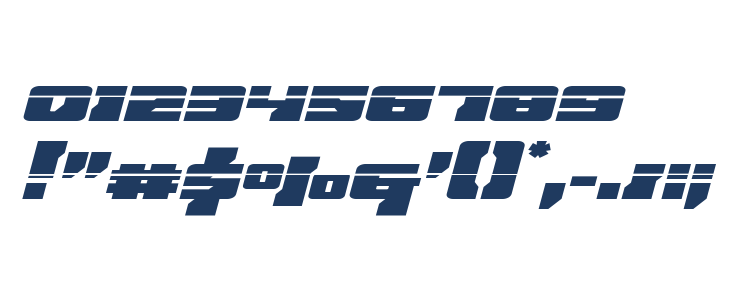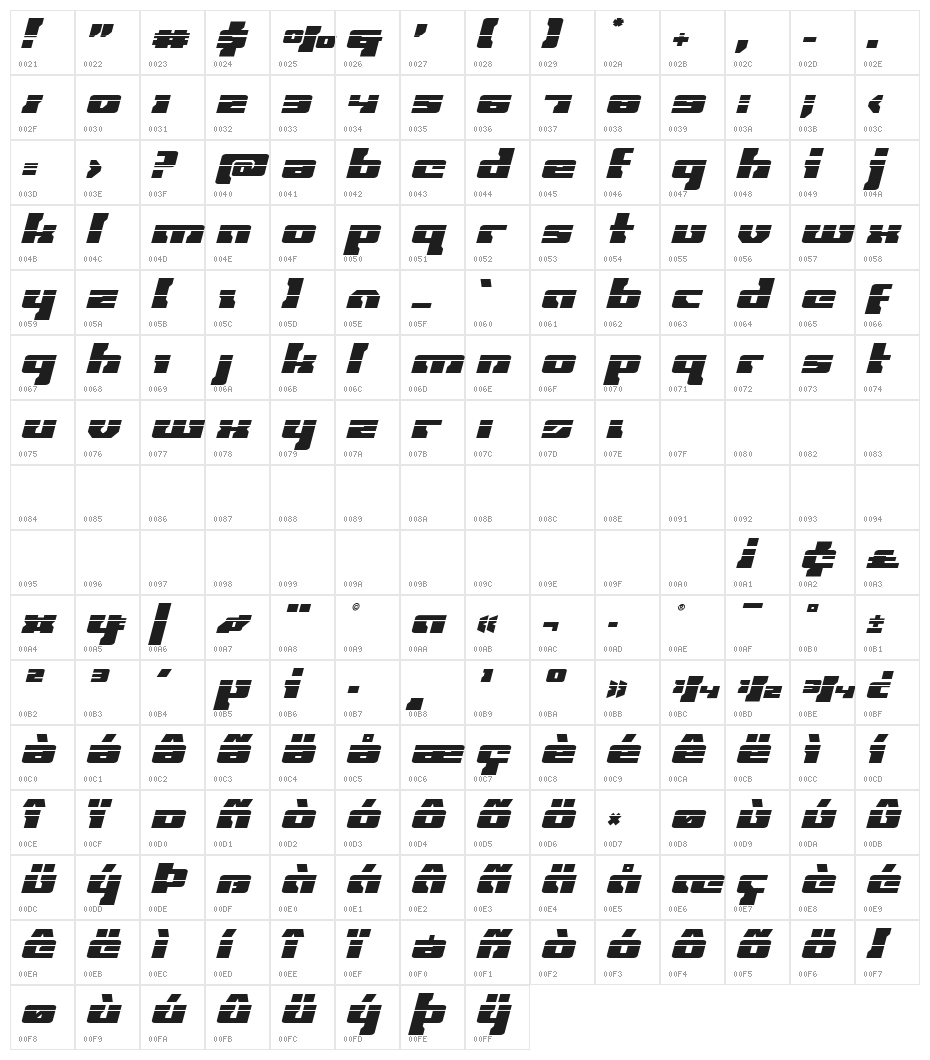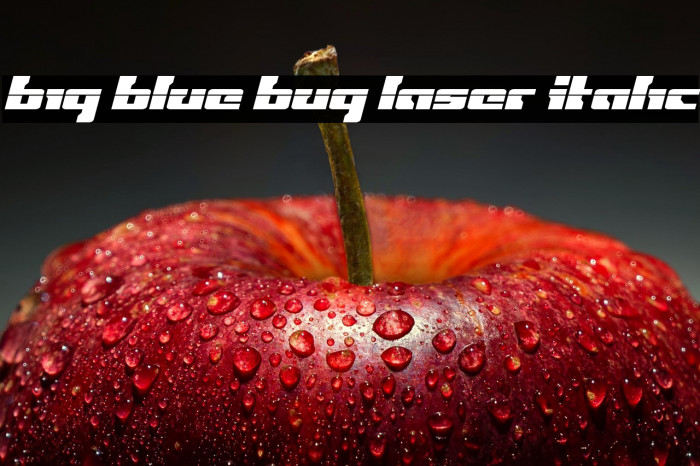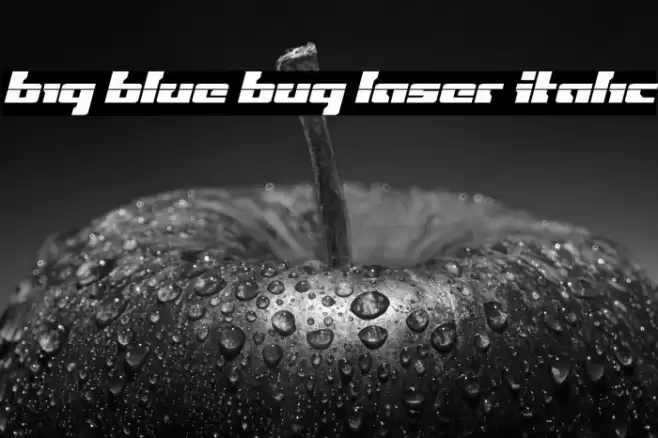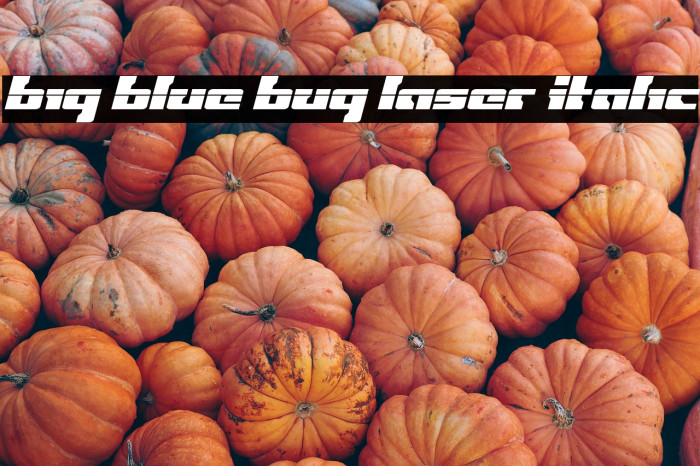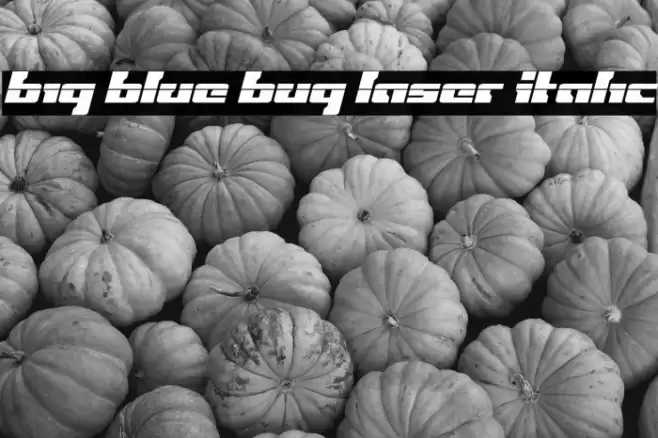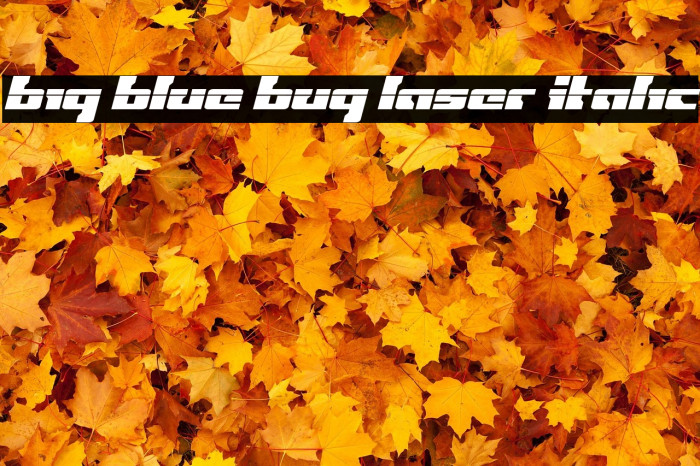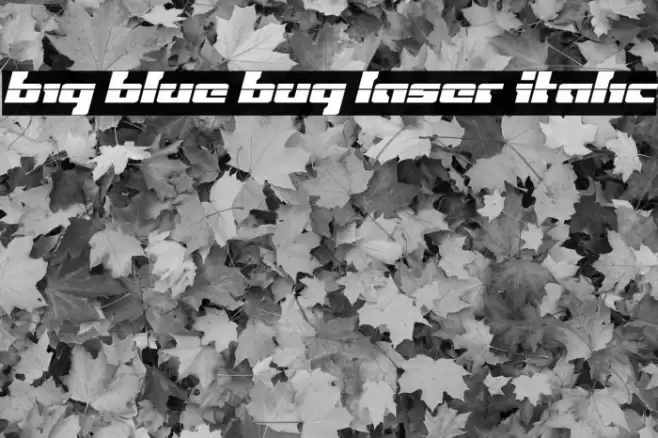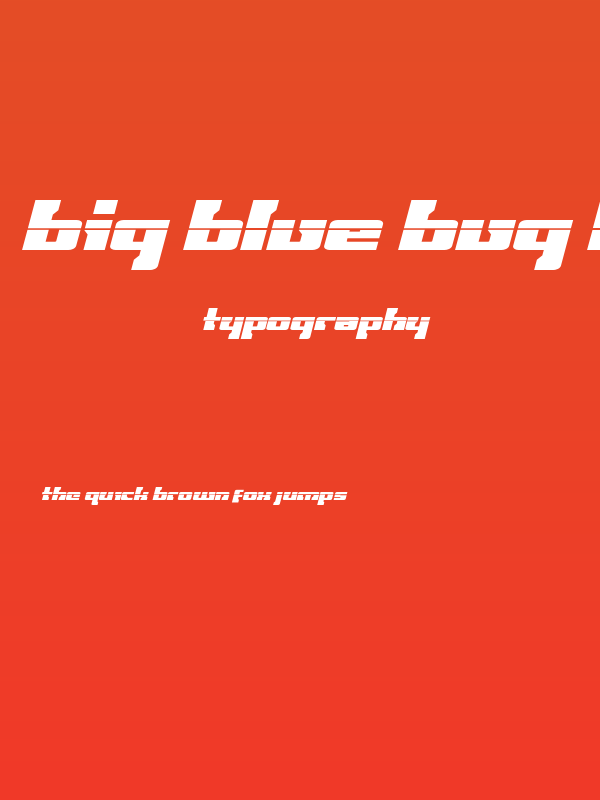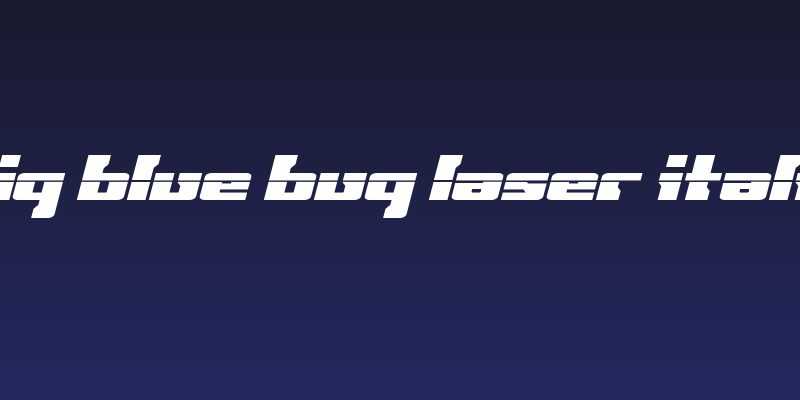
Big Blue Bug Laser Italic Font
Big Blue Bug Laser Italic Description
This font features a bold and dynamic style with a futuristic flair. The characters are italicized, giving a sense of movement and speed. The design incorporates sharp angles and geometric shapes, creating a modern and edgy appearance. The uppercase and lowercase letters maintain a consistent style, with the lowercase letters mirroring the uppercase in form. Numbers and special characters follow the same design principles, ensuring uniformity across all glyphs. The font's bold weight and unique style make it ideal for attention-grabbing headlines and logos.
| Proposed Projects | Ideal for sci-fi themed projects, tech branding, video game titles, and dynamic posters. |